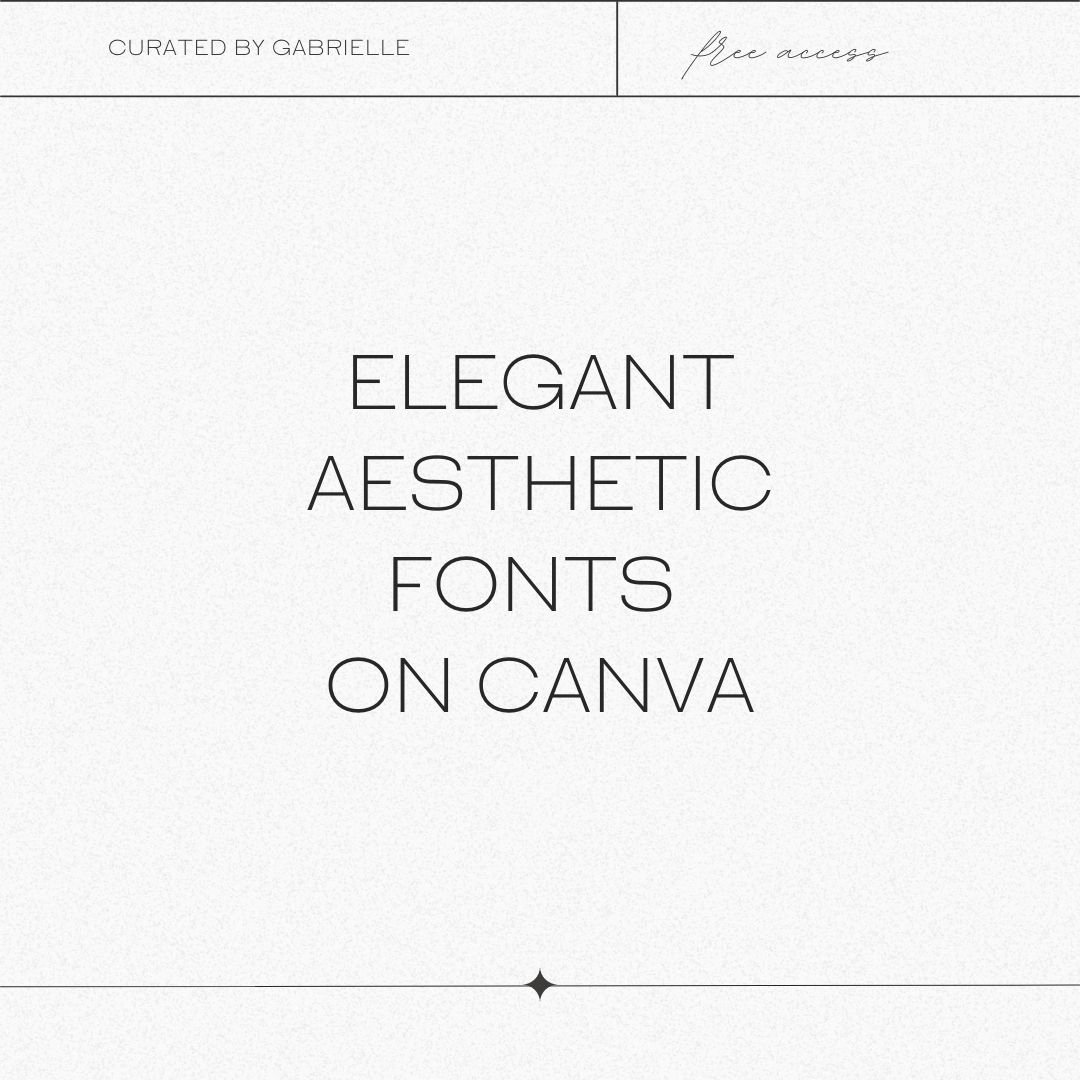
✦ My favorite Elegant Aesthetic Canva Fonts ✦
There are so, so, SO many options for what fonts to use on Canva, especially if you’re a Canva Pro user.
I could (and sometimes do) spend hours scrolling, and testing, and changing, and tweaking, until I get to the perfect combination. But because I’ve spent all of this time on the platform, scrolling, and testing… I figured you shouldn’t have to. Someone might as well benefit from my lost hours, right?
1. Balgin (Available Free)
If you want to go back in time and do something big, look no further than the Balgin Font! This font will help you do that.
Balgin brings back the nostalgic era of ’90s when everything was big, massive, and sometimes scary. Even simple shapes became complicated and complex. It’s a font designed for everything big, compact, and powerful.
Balgin’s harmonious proportions, sharp lines, and clean structure are the perfect fit for retro gaming graphics or any other brand image that wants to feel authentic and original.
The fonts are based on geometric/basic shapes (Triangle, Square, Circle) form, but they have a twist – they are rounded shapes as well. The characters are sturdy and bold, but also have a freshness to them. It’s like if you add some salt to your macaroni and cheese: it whispers “this is going to be good”.
Originally designed by Cahya Sofyan.
2. Billion Miracles (Available Free)
A Billion Miracles is the perfect combination of classic calligraphy and modern style. It may not be made of chocolate, but its beautiful and well-balanced characters are sure to satisfy—and its hand-drawn appearance makes it match nearly any project.
The imaginative and playful font combines traditional script with a modern sensibility. Every curve, every stroke—each was designed to capture the whimsy of our everyday lives. (Hence, “Billion Miracles.”)
Billion Miracles was designed with versatility in mind so it can be used on everything from social media posts and ads, printed quotes, t-shirt designs, packaging, or even as a modern text overlay to any background image. The font is PUA encoded which means you have access to all of the glyphs and swashes with ease!
Originally designed by Donis Miftahudin
3. Cooper Hewitt Thin (Available Free)
Looking for a good time?
Well then let me introduce you to Cooper Hewitt Thin, the sultriest sans serif out there.
Sure, you’ve heard about him—he’s got a reputation—but now that he’s back in town, you can see what all the fuss is about. It’ll take your breath away when he wraps you up in his modified-geometric curves and arches.
But don’t expect him to settle down with just anyone! He’s been around the block a few times—he was originally commissioned by Pentagram and evolved from Polaris Condensed, so it’s going to take something special to get him to commit.
“Developing this typeface specifically for Cooper Hewitt has been enormously gratifying,” said Jenkins. “Instead of building on the Polaris structures, I drew everything from scratch, using the existing forms as a rough guide for letter widths and master-stroke thicknesses.”
Cooper Hewitt is also available in a variety of weights to suit any project – all accessible in Canva Free accounts!
4. Flatlion (Available Free)
If you’re looking for a font that will turn your audience’s heads, look no further.
Introducing Flatlion—a typeface with all the elegance and panache of a lion on its way to an important business meeting.
Flatlion is a font that has it all: it’s elegant and modern, sleek and professional. But it also has some fun and creative twists that give it personality.
You could use this font to create anything from blog posts to social media graphics, but we think its real strength comes when you’re trying to make an impression. Imagine the fonts curled around your new logo, or in bold on the cover of your book.
Flatlion is a great choice for making your next big project really stand out from the crowd!
Originally designed by Din Studio
5. Gordita Light (Canva Pro)
Gordita is the font you never knew you wanted.
It’s been described as “minimal but not too minimal” and “serious but not too serious.” It’s the sans serif font you’ve dreamed of, with a geometric foundation that has been built upon with modern details that result in an optically balanced, friendly typeface.
When designing Gordita, designer Thomas Gillett was heavily influenced by Futura and Gotham.
So what does that mean for you? Well, it means that Gordita is both aesthetically pleasing AND extremely versatile—you can use it in print or online, large or small. It makes a fantastic alternative to Montserrat (I know, I know… it’s classic, but it’s also EVERYWHERE!) if you’re looking for a solid paragraph text that is highly readable, and structured.
6. The Seasons Light (Available Free)
When you’re designing something, you’re creating an experience. Whether it’s a website or a magazine, you’re setting a tone and establishing an atmosphere. So what kind of experience do you want to create? Do you want your readers to feel like they’ve just visited the Museum of Natural History, or do you want them to feel like they’ve just taken a trip back in time?
With The Seasons, it’s all about feeling like you’re in the past—but a fun version of the past. It’s not your grandma’s serif font (but don’t worry, we have that one!). This font will make your readers feel like they’ve taken a trip back in time—and that it was fabulous!
This is what we call “vintage chic.” It’s old school, but it feels fresh and new. It’s perfect for any design project that needs an old-fashioned vibe with a modern look.
The Seasons was designed by Elena Genova and published by My Creative Land.
7. Mont Thin (Canva Pro)
As far as fonts go, Mont is a classic overall. The full family includes 20 different fonts, at a variety of weights. In other words, there’s a Mont that will meet your needs no matter what you’re working on. Looking for bold and badass? Mont Bold has you covered.
However today, we’re looking for classic and aesthetic. And in the Mont family? That’s where “thin” comes in.
It’s well balanced, and feels like Montserrat’s older, slightly more evolved brother. It’s a font that, depending on your project, might serve ALL of your needs – headline, subtitle, and paragraph. All in one swoop.
If that’s not badass, I don’t know what is.
8. Signature (Available Free)
Signature is like the perfect dance partner – always lined up with you just right. It knows what you’re going to do next sometimes before you do – and it pairs incredibly well with a simple sans serif. This is a font that’s not meant to dance alone.
The calligraphic elegance of Signature’s strokes feels luxuriously handwritten, so interrupting that movement by pairing it with a structured geometric choice is the perfect level of juxtaposition.
Perfectly suited to be used as a highlight in your content, Signature will give a handwritten touch to placecards, invitations, and notes. And, it can add some elegance to your brand content, if you’re looking to bring a bit of handwritten whimsy to your presence.